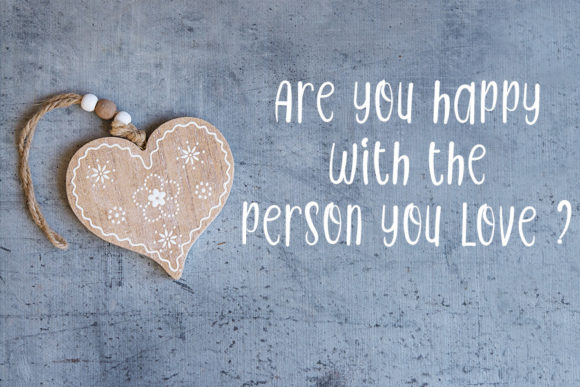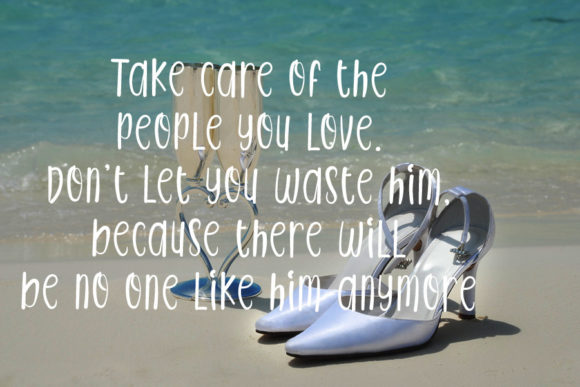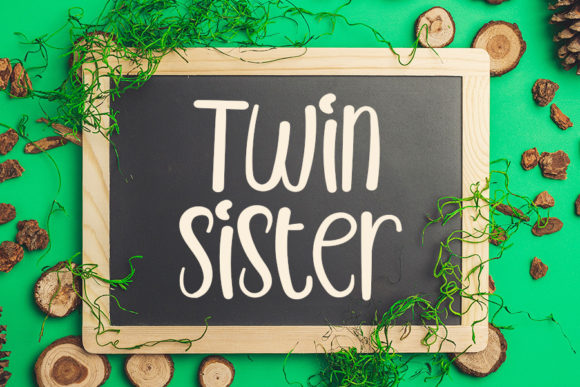
Hello Joy Font
Hello Joy is a fun and quirky handwritten font that embodies playfulness and a friendly style in every character. Use it for children’s storybooks, stationery, games, and other crafty ideas that need to look approachable.